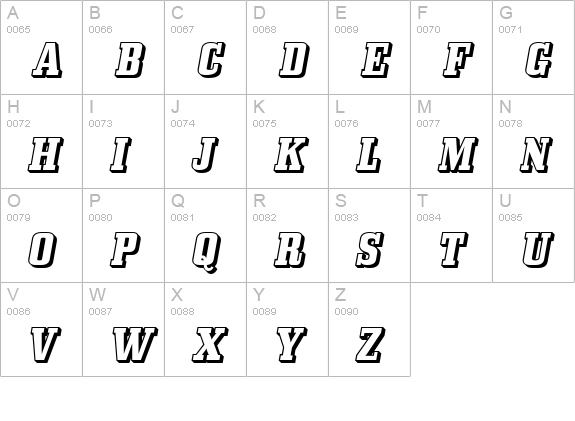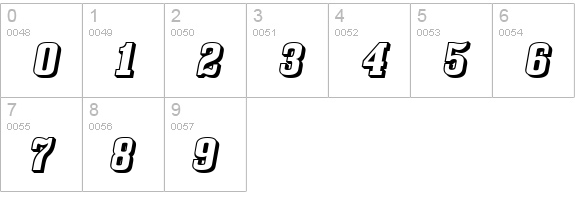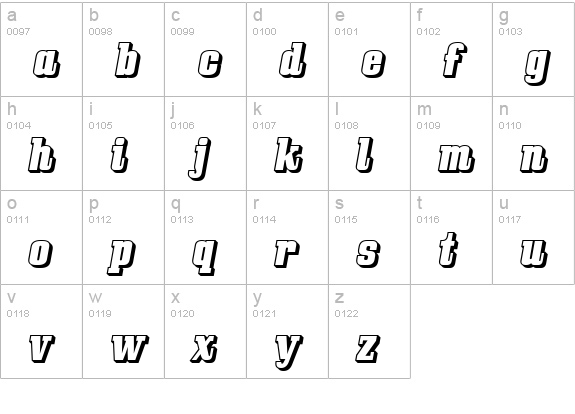
Bullpen 3D Font Details
Bullpen 3D font is a dynamic and eye-catching typeface that adds depth and dimension to your design projects. With its bold and modern look, Bullpen 3D font is perfect for creating striking headlines, posters, and logos that demand attention. The three-dimensional effect gives a unique and playful touch to any text, making it stand out from the crowd. Best of all, Bullpen 3D font is available for free download at FontsMarket.com. This means you can easily access this versatile font and use it in your personal and commercial projects without any cost. Whether you're a graphic designer, marketer, or hobbyist, Bullpen 3D font offers endless creative possibilities to elevate your designs. Download Bullpen 3D font today and unleash your creativity with this captivating typeface.